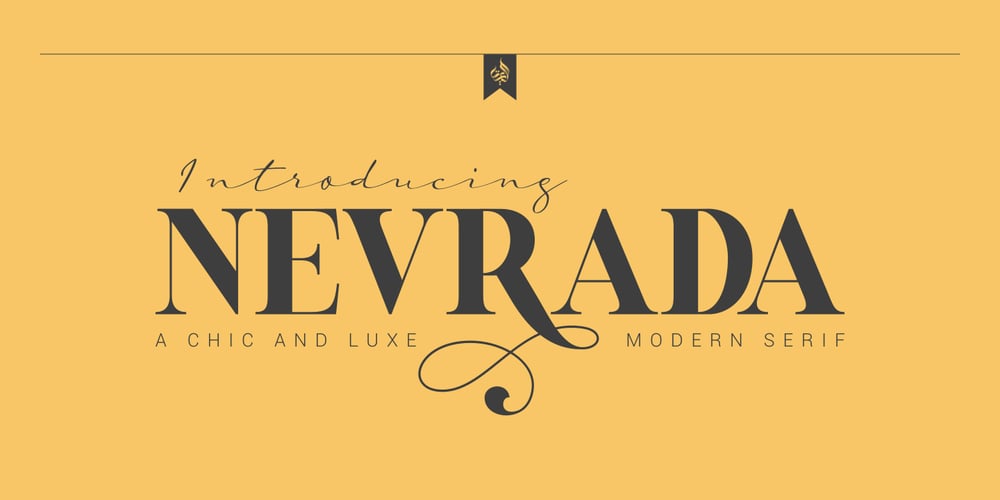
AL Nevrada Font Family was designed by Linggar Sundoro and published by Aluyeah Studio. AL Nevrada contains 1 styles and family package options. Introducing Al Nevrada Font. It’s a display typeface with sharp serif forms. If you want to stand out then this is the font for you. It’s a chic and luxurious serif font with a contemporary feel. Use it to add a bold flavor to any design! It’s ready and perfectly fit for your logo designs, headlines, music projects & social media posts, event posters, brand imagery, product packaging, quotes, merchandising, etc.Features : OpenType features ( ligature, alternate ) Easy to use, you can use combination like a.2 e.2 etc Accessible in the Adobe Illustrator, Adobe Photoshop, Adobe InDesign, also works in Microsoft Word. PUA Encoded Characters – Fully accessible without additional design software. Multilingual support